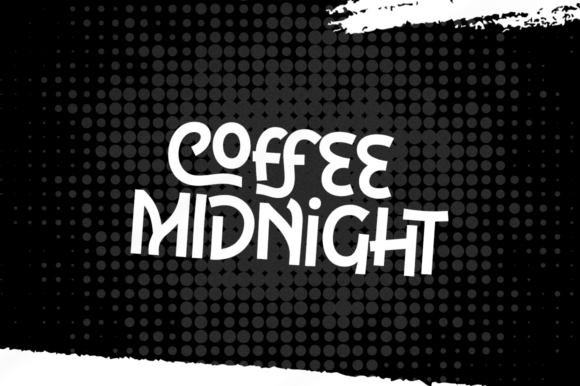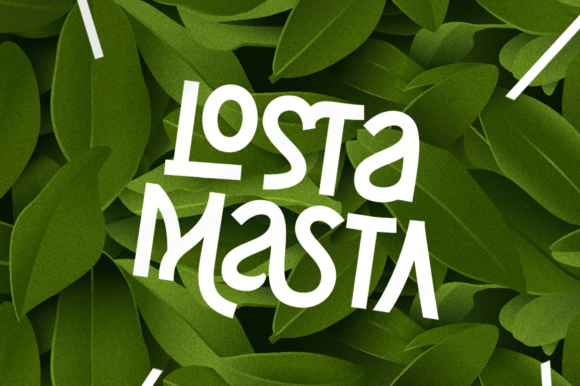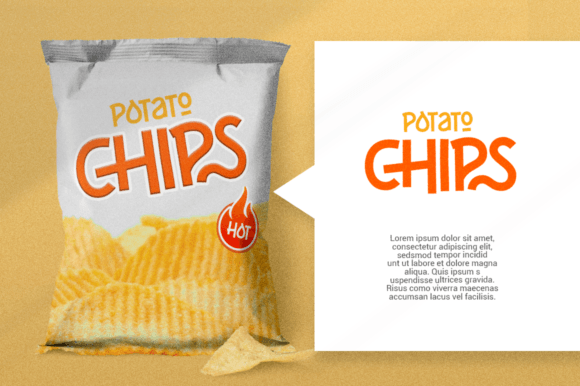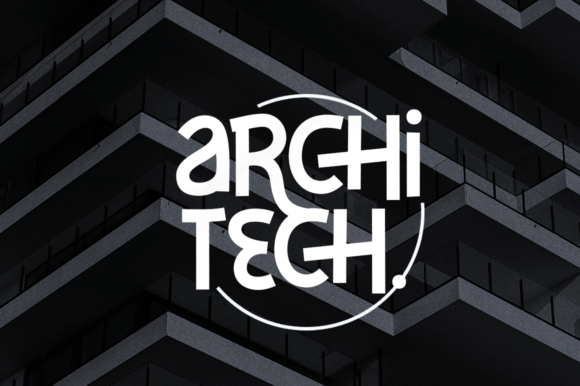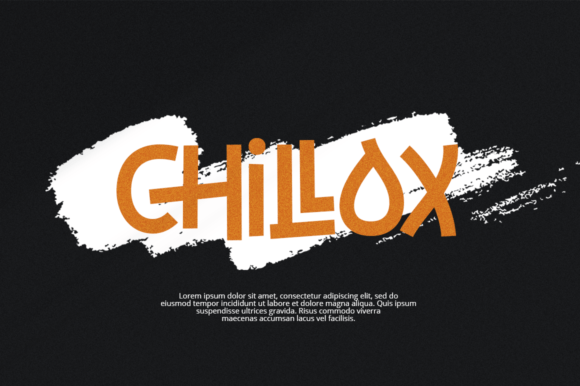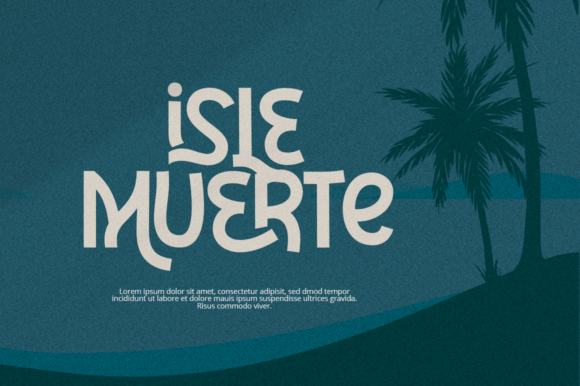
Introduction to Mochalatte Font Font
Fonts play a crucial role in design, and the Mochalatte Font font is a typeface that brings both character and versatility to any project. Whether you’re working on a branding project, a website, or a print design, the Mochalatte Font font offers a unique style that can elevate your work.
Mochalatte is an attractive and modern semi-bold, elegant decorative font with a fun, dashing style look.
This font is equipped with extra ligatures and alternates, that will make your creative design projects look impressive and stunning Mochalatte is perfect for logotypes, posters, t-shirt designs, packaging brands, or quotes, magazine headers, etc.
The Mochalatte Font font is more than just a typeface – it’s a design tool that helps you communicate your message with style and clarity. Its unique character set and versatile design make it suitable for a wide range of applications, from elegant invitations to bold headlines.
With its carefully crafted letterforms and balanced proportions, the Mochalatte Font font ensures readability and visual appeal across all mediums.
The Mochalatte Font font stands out with its unique design, exceptional readability, and versatility across various design applications.